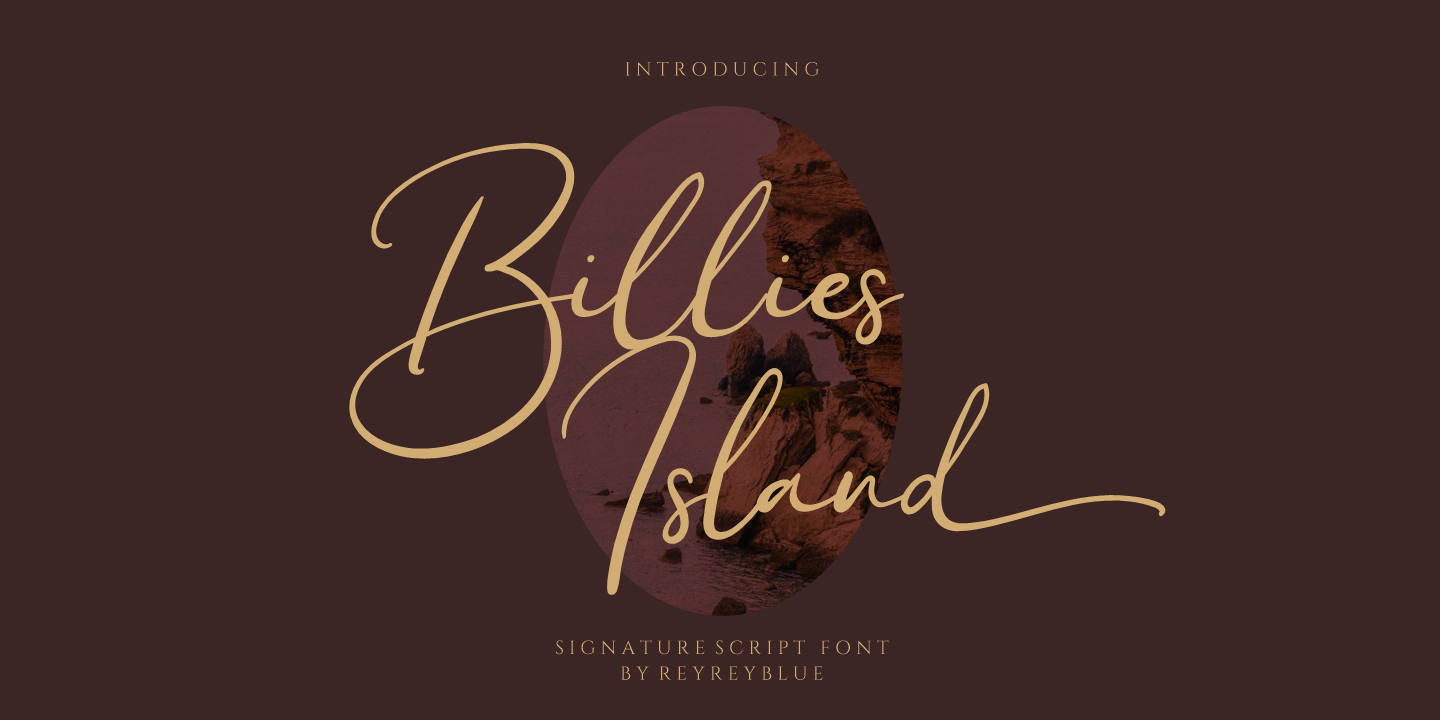
Billies Island Font is excellent for tropical resort branding, island vacation marketing, beachside restaurant menus, coastal lifestyle brands, surf shop signage, tiki bar advertisements, ocean adventure tours, paradise retreat materials, and Caribbean-themed celebrations.
What makes Billies Island Font so exciting is its tropical paradise charm that perfectly captures the laid-back island lifestyle and sun-soaked serenity of endless summer vacations and beachside bliss. This relaxing typeface features casual letterforms with island-inspired curves and breezy proportions that instantly transport viewers to sandy beaches and swaying palm trees. The font's distinctive character incorporates the carefree spirit of island living while maintaining excellent readability, making it ideal for vacation brands seeking to communicate relaxation, escape, and tropical paradise experiences.
Billies Island Font includes a breezy family with Regular, Bold, Light, and Wave variations, each maintaining the signature island aesthetic while offering different levels of tropical impact for various vacation and coastal applications. Additional palm tree ornaments and tropical decorative elements provide extra creative possibilities for designers working on paradise and beach-themed projects.
Whether you're developing tropical vacation brands, creating island marketing materials, or designing paradise celebration campaigns, Billies Island Font Free Download delivers the relaxation and tropical authenticity that island paradise projects require. Its versatile nature makes it suitable for both digital vacation content and print tropical applications while maintaining consistent island appeal across all paradise platforms. This exceptional typeface brings genuine island magic to your designs, ensuring your message communicates escape and relaxation that resonates with audiences who dream of tropical getaways and appreciate design that celebrates the wonderful freedom and endless sunshine of island paradise living and beachside adventures.